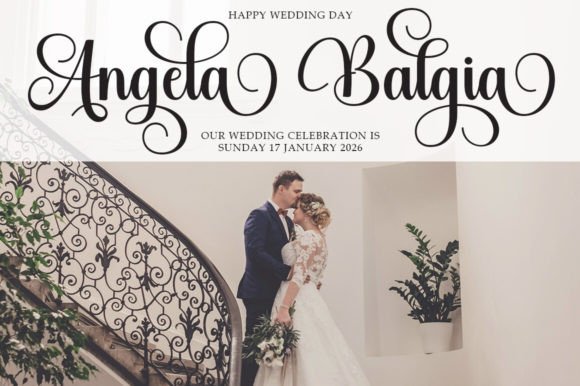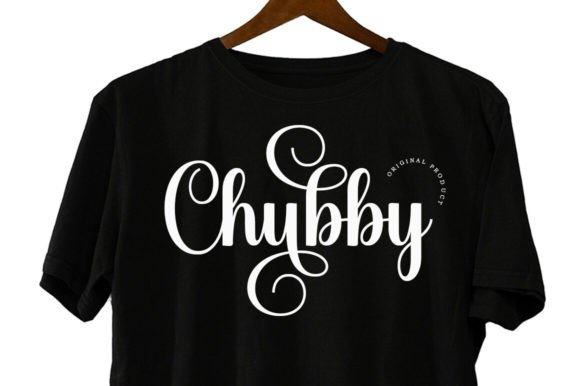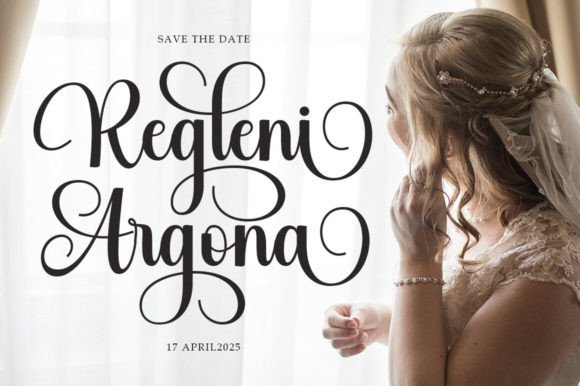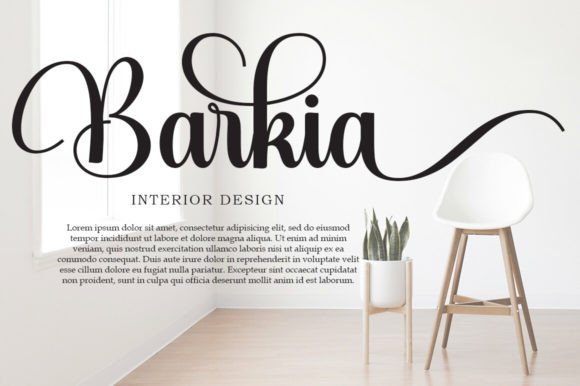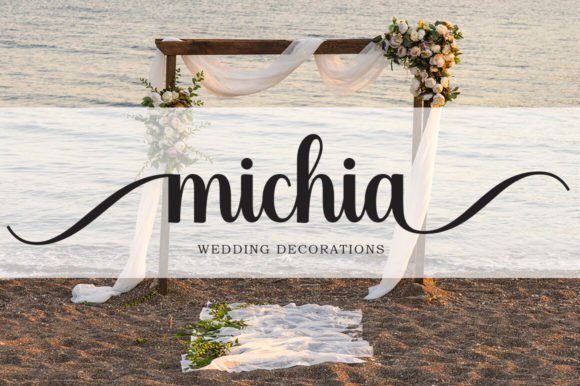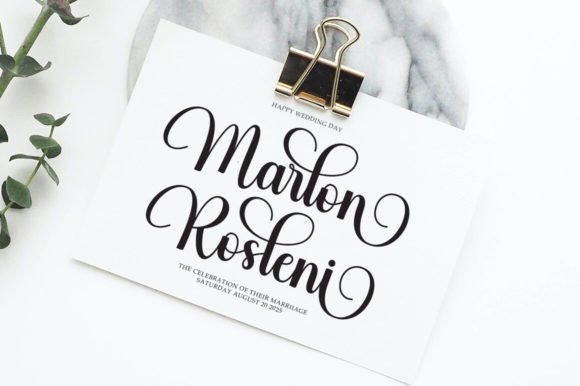
When Words Become Art: The Magic of Angel Font
Imagine you’re sitting at your desk, surrounded by scattered papers, half-finished projects, and a sea of color swatches. You’re working on a special wedding invitation for a dear friend, and you want it to be nothing short of perfect. As you start to brainstorm, your mind wanders to the perfect font – one that exudes elegance, sophistication, and a touch of whimsy.
That’s where Angel Font comes in – a stylish and refined script font that’s perfect for adding a handwritten touch to any design. Whether you’re creating wedding invitations, thank you cards, or logos, Angel Font is the perfect choice to convey your message in a beautiful and timeless way. With its PUA encoded features, designers can access a wide range of glyphs and ligatures with ease, making it a valuable asset in any creative project.
Angel Font Key Features
- Font Family: Angel Font is a script font, designed to evoke a sense of elegance and sophistication.
- Unique Characteristics: Angel Font features a unique, hand-drawn style with intricate flourishes and subtle texture, giving it a distinctive and eye-catching appearance.
Angel Font Review
When I first laid eyes on the Angel Font, I was immediately drawn in by its whimsical ✨ charm. The delicate, hand-drawn lines and subtle curves evoke a sense of gentle elegance that’s perfect for adding a touch of magic to your designs.
- The font’s ✨ fluidity is one of its standout features – it flows effortlessly from one letter to the next, creating a sense of continuity that’s essential for effective typography.
- The ✨ variety of weights and styles on offer means you can use the Angel Font to convey a range of emotions and moods, from playful to sophisticated.
- The ✨ subtle texture and imperfections add a touch of humanity to the font, making it feel more relatable and less sterile than some other sans-serif options.
However, there are a few limitations to consider ⚠️:
- The font’s ✨ limited range of sizes and styles can make it feel a bit restrictive for more complex designs.
- The ✨ text may become difficult to read at very small sizes, so it’s essential to use it thoughtfully and sparingly.
Overall, I think the Angel Font is a beautiful and versatile addition to any designer’s toolkit. While it may not be perfect, its unique charm and ✨ expressive qualities make it a great choice for anyone looking to add a touch of whimsy to their designs.
Getting the Most Out of Angel Font
To get the most out of the Angel Font, consider the following tips:
- Combine the Angel Font with other fonts for a unique and eye-catching design.
- Use the Angel Font in creative and unexpected ways, such as in headings or as a background element.
The Angel Font is commonly used in:
- Use Angel Font as the main headline font to emphasize the special occasion.
- Combine Angel Font with watercolor illustrations or hand-drawn elements to add a touch of whimsy.
- Pair Angel Font with a classic serif font, such as Times New Roman, to create a beautiful contrast.
- Use Angel Font as the primary font to display the quote, emphasizing the beauty of the words.
- Combine Angel Font with intricate illustrations or patterns to add visual interest.
- Pair Angel Font with a bold, modern font, such as Arial Black, to create a striking contrast.